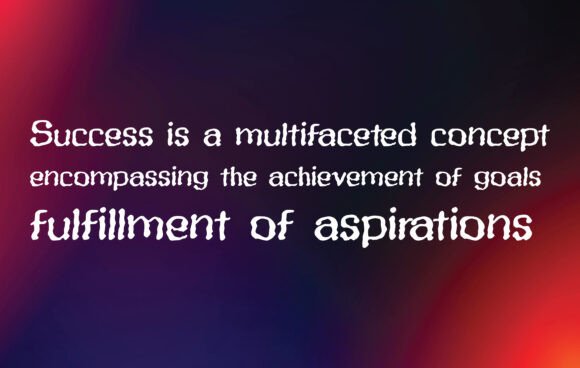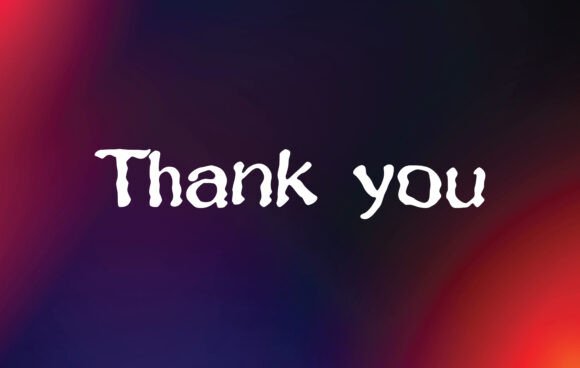
Cameron Font: The Ultimate Go-to Favorite for Designers and Crafters
In the world of typography, a great font can make all the difference in bringing your creative ideas to life. Introducing Cameron Font, a versatile and eye-catching typeface that’s designed to be a go-to favorite for designers and crafters alike. With its clear and easy-to-read design, Cameron Font is perfect for a wide range of applications, from titles and body text to branding and marketing materials.
What Makes Cameron Font So Special?
So, what sets Cameron Font apart from other typefaces on the market? For starters, its unique blend of style and personality makes it perfect for adding a touch of flair to any design project. Whether you’re working on a magazine cover, t-shirt, social media post, or wedding invitation, Cameron Font fits right in with its elegant and sophisticated aesthetic.
But Cameron Font is more than just a pretty face. Its clear and easy-to-read design makes it a great choice for body text, ensuring that your message gets across with clarity and precision. This is especially important for designers and crafters who need to communicate complex information in a clear and concise manner.
Endless Design Possibilities with Cameron Font
One of the best things about Cameron Font is its incredible versatility. This font is designed to work beautifully in a wide range of applications, including:
- Magazine Covers: Add a touch of glamour and sophistication to your magazine covers with Cameron Font’s elegant design.
- T-Shirts: Create eye-catching and stylish t-shirt designs that are sure to turn heads with Cameron Font.
- Social Media Posts: Elevate your social media game with Cameron Font’s modern and trendy aesthetic.
- Branding: Use Cameron Font to create a consistent and recognizable brand identity that reflects your values and personality.
- Wedding Invitations: Add a touch of romance and elegance to your wedding invitations with Cameron Font’s beautiful design.
- Greeting Cards: Create stunning greeting cards that are sure to impress with Cameron Font’s versatility and style.
Why Choose Cameron Font?
So, why should you choose Cameron Font for your next design project? Here are just a few reasons why:
- Versatility: Cameron Font is designed to work beautifully in a wide range of applications, making it a great choice for designers and crafters who need a font that can keep up with their creative vision.
- Style: With its elegant and sophisticated aesthetic, Cameron Font is perfect for adding a touch of style and personality to any design project.
- Readability: Cameron Font’s clear and easy-to-read design makes it a great choice for body text, ensuring that your message gets across with clarity and precision.
In conclusion, Cameron Font is the ultimate go-to favorite for designers and crafters who need a versatile, eye-catching, and easy-to-read typeface. With its unique blend of style and personality, Cameron Font is perfect for a wide range of applications, from titles and body text to branding and marketing materials. So why wait? Try Cameron Font today and bring your creative ideas to life in a whole new way!